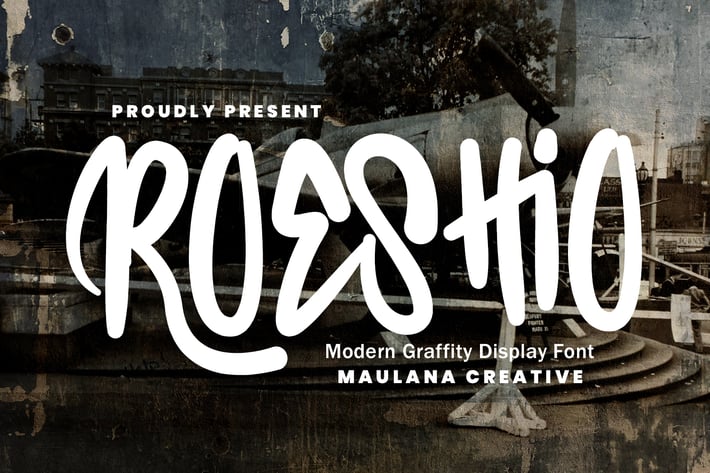
Roeshio Graffiti Display Font
Roeshio graffiti display font, fun character with a alternate and ligature. To give you an extra creative work. Roeshio graffiti display font support multilingual language.